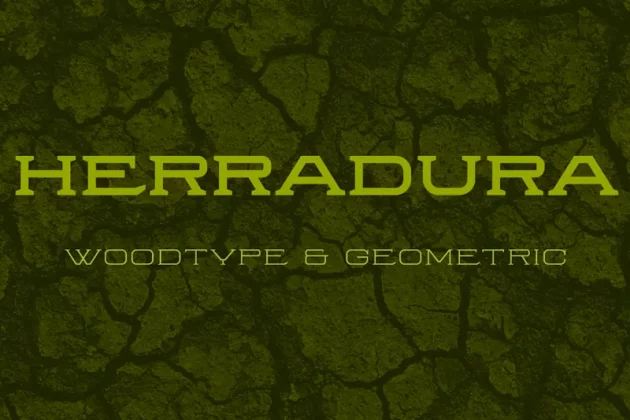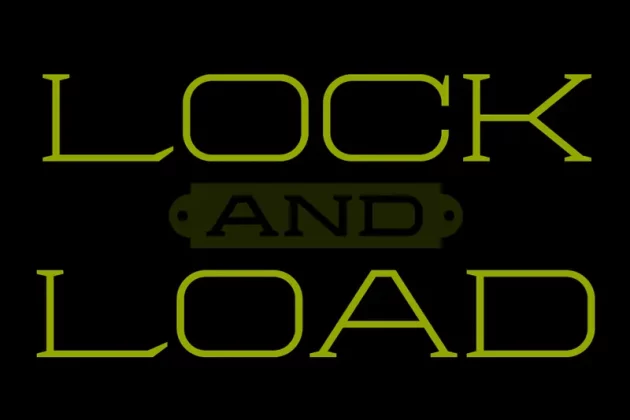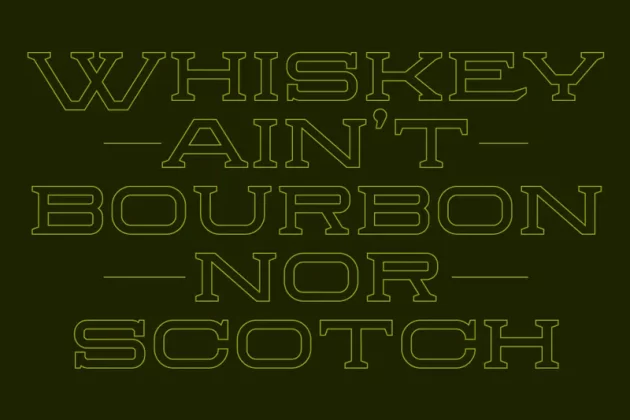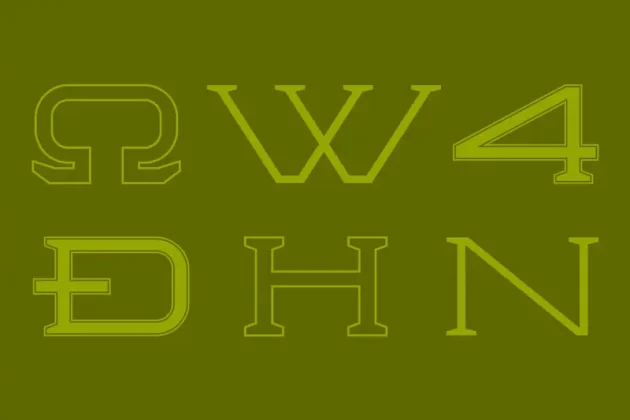
Herradura Font Family Font
Designer: Pablo Balcells
Herradura font family has been designed for Graviton Font Foundry by Pablo Balcells in 2013. It is a wood-type slab serif typeface with a slightly techno angular look.
Herradura consists of 8 styles including 4 shadowed styles, each containing framed characters and endings.